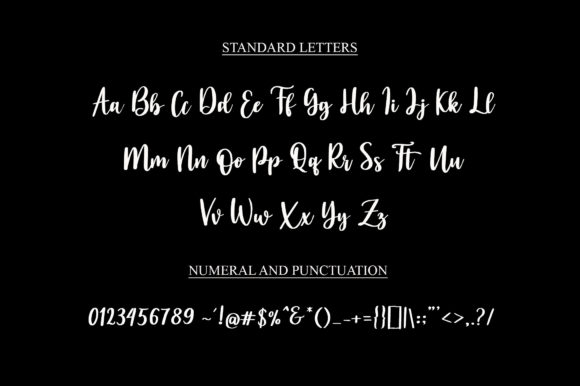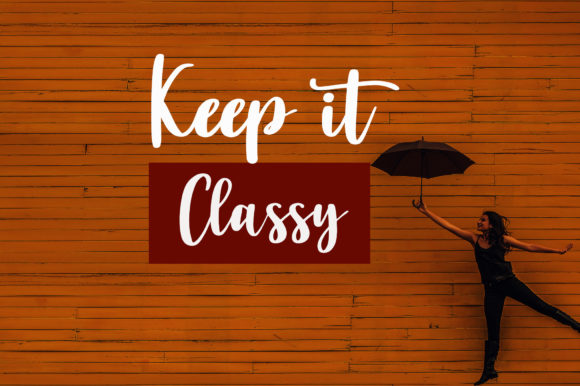
Mountains Font
db-ku.com - Script & Handwritten -- Mountains is a simple, well balanced and beautiful script font. Its sweet and full of life style makes this font a wonderful choice for brightening up your designs.